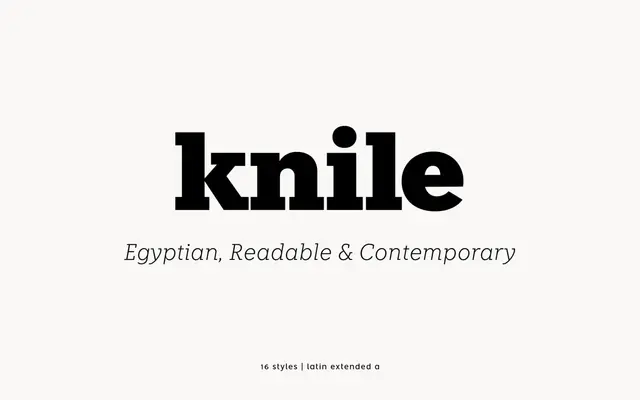
Knile
atipo foundry · Raul Garcia del Pomar, Ismael Gonzalez · 2019
Knile specimen from atipo foundry
A contemporary text and display serif by atipo across eight weights with italics, drawn for editorial systems that need both text and display range.
A contemporary serif by Raul Garcia del Pomar and Ismael Gonzalez at atipo foundry, with eight weights from Thin to Black and matching italics. Knile includes tabular figures, fractions, superiors and ordinals and case-sensitive forms in its OpenType layer, with broad Latin language coverage including Belarusian Lacinka. Designed to flex across editorial text, branding and display, with calligraphic italics that hold their own as display.
A contemporary serif with calligraphic underpinnings and modest contrast, sitting in the lineage of post-Garamond text serifs but drawn with cleaner, slightly more geometric proportions. Nine weights with matching italics from Thin to Black support both text and display.